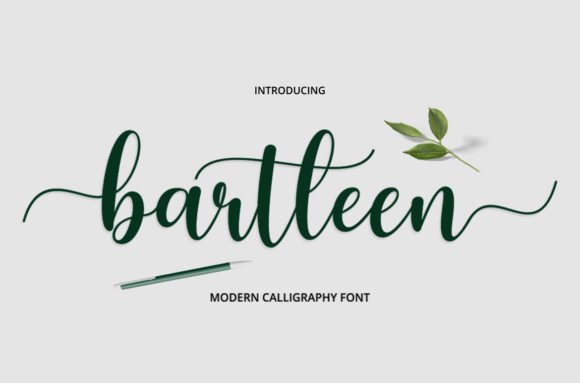
The Joy of Handwritten Charm: Introducing Bartleen Font
There’s something magical about the first spark of creativity – the moment when an idea begins to take shape, and the possibilities feel endless. For designers, this feeling is what drives us to push the boundaries of what’s possible with typography. And that’s exactly what Bartleen Font offers: a unique blend of style and functionality that will elevate your designs to new heights.
Bartleen Font is a beautifully crafted handwritten font that boasts two distinct styles, each with its own character and charm. With its PUA-encoded characters, you’ll have access to a world of glyphs and ligatures that will add an extra layer of sophistication to your work. Whether you’re a seasoned pro or just starting out, Bartleen Font is a valuable addition to any designer’s toolkit.
Bartleen Font Review
Overall, I’m quite impressed with the Bartleen Font. Here are some aspects that stand out to me:
- ✨ Unique blend of vintage and modern styles, making it perfect for unique branding and creative projects.
- ✨ Highly customizable, allowing designers to adjust the font’s weight, size, and spacing to fit their needs.
- ✨ Supports a wide range of languages, making it a great option for global branding and marketing campaigns.
- ⚠️ May not be suitable for large blocks of text, as it can become overwhelming and difficult to read.
- ⚠️ Limited font pairing options, as it’s a bit of a statement font and may clash with more traditional fonts.
In conclusion, the Bartleen Font is a great choice for designers looking for a unique and eye-catching font. While it may not be suitable for every project, its customization options and language support make it a valuable addition to any designer’s toolkit. With a bit of creative planning, the Bartleen Font can add a touch of personality and whimsy to any design project.
The Bartleen Font is ideal for:
- Brand identities and logos
- Book covers and publishing materials
To get the most out of the Bartleen Font, remember to:
- Use it in conjunction with other elegant fonts for a sophisticated look.
- Use Bartleen Font for the quote headers and body text to create a cohesive look.
- Pair the font with watercolor illustrations or hand-drawn elements to add a touch of whimsy.
- Experiment with different font sizes and styles to create visual hierarchy and emphasis.
- Watercolor backgrounds or subtle texture overlays.
- Hand-drawn or illustrated elements, such as flowers or leaves.
- Custom-designed icons or graphics to break up the text.
- Use Bartleen Font for the main invitation text, such as the couple’s names and wedding details.
- Pair the font with a simple, yet elegant layout and color scheme to create a sophisticated look.
- Experiment with different font sizes and styles to create visual hierarchy and emphasis.
Alternatives to Bartleen Font
Montserrat is a modern sans-serif font, perfect for urban and tech-related designs. It’s clean, bold, and highly legible. Use it for headings, titles, and short paragraphs. Montserrat is more geometric than Bartleen Font and has a stronger emphasis on lines and shapes.